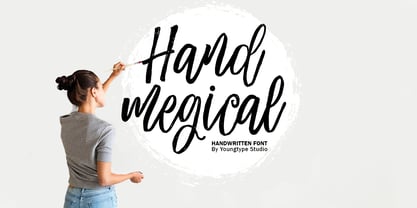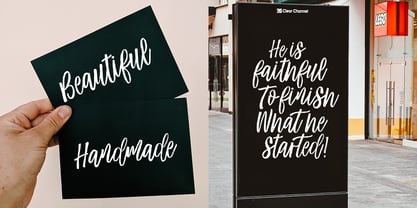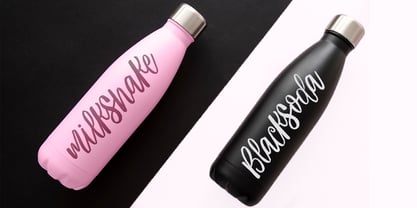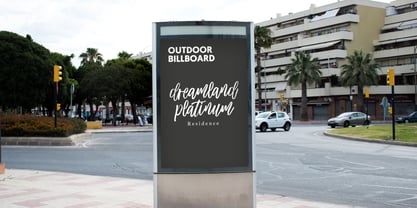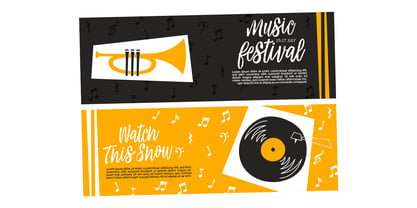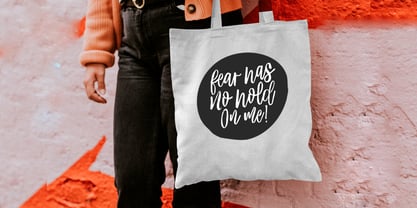
Hand Megical Deactivated
by Youngtype
The Hand Megical Deactivated Font Family was designed by Naufal Paramata and published by Youngtype. Hand Megical Deactivated contains 1 styles. More about this family
Hand Megical are modern font sets featuring an organic, dynamic and energetic style. They can be used for a variety of purposes, such as titles, signatures, logos, correspondence, wedding invitations, letterheads, nameplates, labels, newsletters, posters, badges and much more.
Designers: Naufal Paramata
Foundry: Youngtype